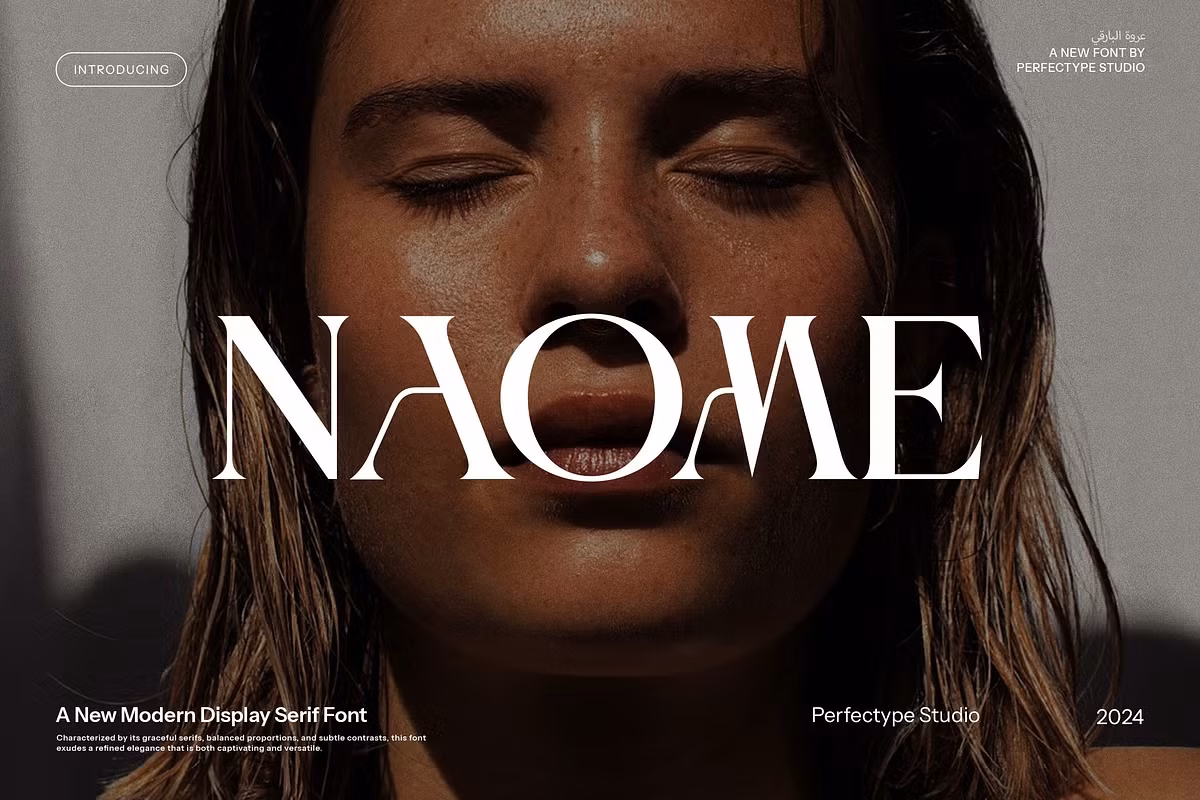
Naomi Modern Serif Font Free Download is a sleek, sophisticated serif typeface designed to bring modern elegance to any design project. With its clean lines, subtle contrast, and classic yet contemporary letterforms, this font is perfect for luxury branding, editorial designs, websites, packaging, and professional materials.
The refined structure of Naomi makes it ideal for both display and body text, offering versatility and readability. Whether you’re working on a high-end fashion brand, corporate identity, or minimalist web design, this font brings a polished and professional feel to your typography.
Elevate your design work with Naomi Modern Serif Font Free Download, and create sophisticated, timeless typography with a modern edge. Perfect for designers looking for a clean and stylish serif font.